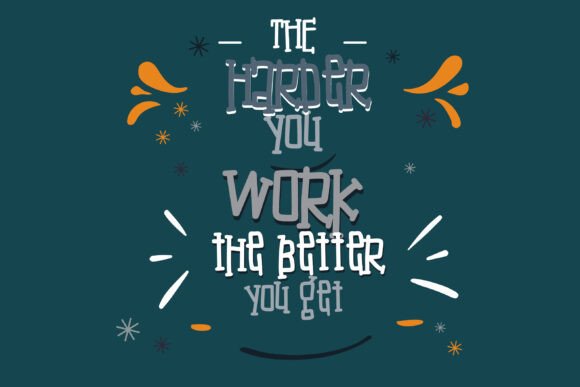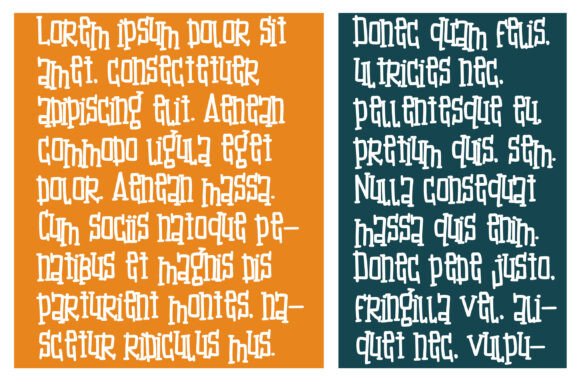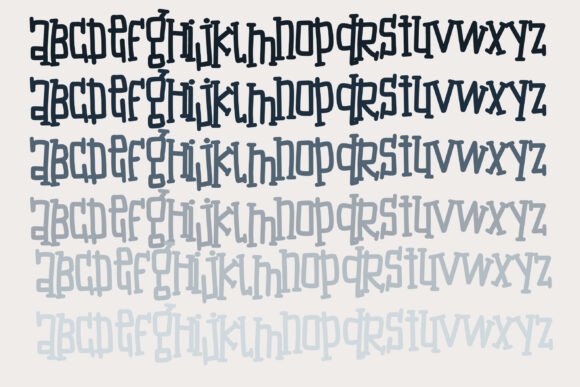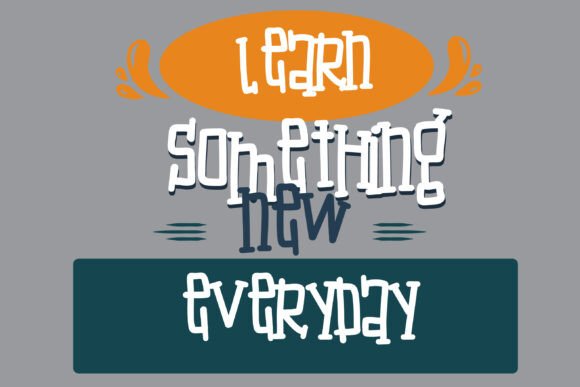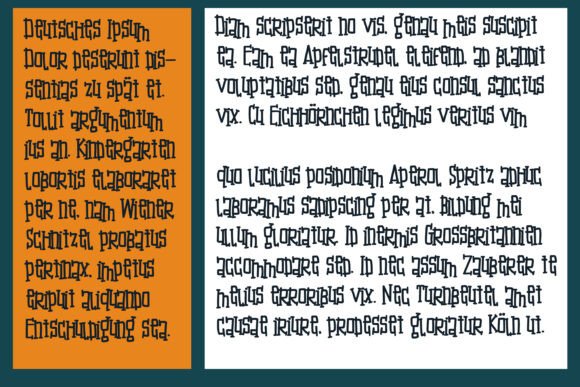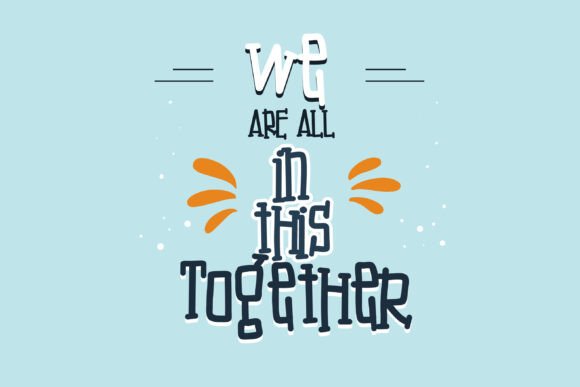
Introduction to Neuropathy Font
As a designer, have you ever found yourself pouring over a blank canvas, searching for the perfect font to bring your creative project to life? The search can be endless, but sometimes it’s the unexpected discoveries that lead to the most beautiful and unique designs. I recall a particular moment when I stumbled upon the Neuropathy Font, a hand-crafted treasure that has since become a staple in my design arsenal.
This enchanting font, with its boxy lettering and whimsical hand-written feel, is a true gem for designers looking to add a touch of personality to their work. Whether you’re crafting a wedding invitation or a birthday card, the Neuropathy Font is sure to bring a smile to your face and a touch of elegance to your design.
Key Features of Neuropathy Font
- High-quality design resource for creative projects: Neuropathy Font is a premium font designed for use in various creative projects, including digital art, graphic design, and typography.
- Transparent background: The font features a transparent background, allowing for easy layering and blending with other design elements.
- High-resolution design: The font is designed at a high resolution of 300 DPI, making it suitable for use in both digital and print applications.
- Unique characteristics: Neuropathy Font features a unique blend of modern and vintage elements, with intricate details and subtle texture, making it stand out from other fonts in its class.
- Perfect for medical and scientific projects: The font’s name and design make it particularly well-suited for use in medical and scientific projects, such as infographics, posters, and presentations.
Honest Review: Neuropathy Font
I recently stumbled upon the Neuropathy Font, a free download that caught my attention. As a designer, I’m always on the lookout for high-quality design resources that can elevate my creative projects.
Here are some things that work well with this font: ✨ It has a modern and sleek design, making it perfect for digital products, logos, and branding materials. ✨ The font is highly customizable, allowing me to adjust the opacity, color, and size to suit my needs. ✨ It also comes with a transparent background, which is a huge plus for designers who value flexibility and versatility.
- Highly customizable with adjustable opacity and color
- Transparent background for flexible design
However, there are some limitations to consider: ⚠️ The font may not be suitable for print materials, as the design may not scale well to larger sizes. ⚠️ Some users may find the font to be too minimalist, lacking the personality and flair they’re looking for.
Overall, I’m impressed with the Neuropathy Font. While it may not be perfect for every design project, it’s a solid addition to any designer’s toolkit. With its high-quality design and transparent background, it’s a great resource for designers looking to add some modern flair to their creative projects.